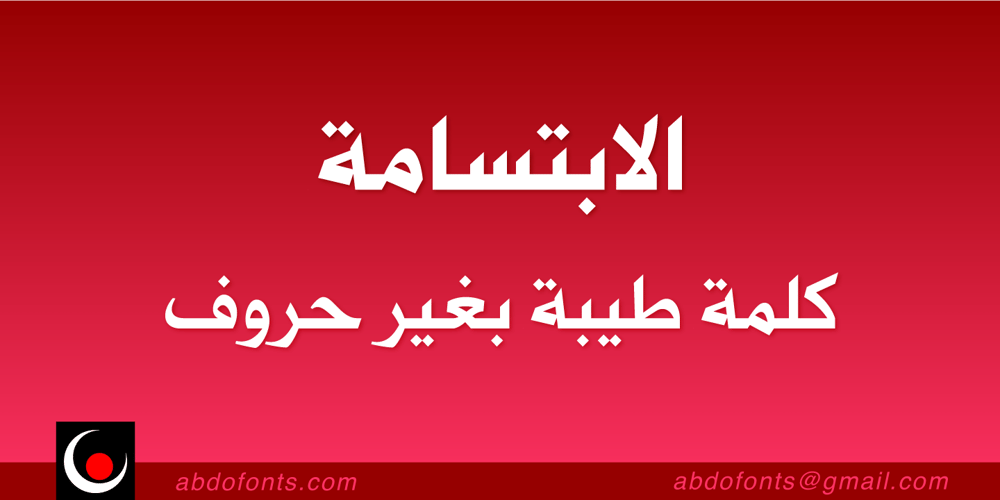
Abdo Screen
Abdo Screen font
Abdo Screen Font Family was designed by Abdulsamiea Rajab Salem and published by Abdo Fonts. Abdo Screen contains 6 styles and family package options. Abdo Screen is a very simple Naskh font for satellite channels, presentations, videos and advertisements. it comes in sixth weights Thin, Light, Regular, Medium, Bold and Black. This font also contains some of Stylistic Sets and Ligatures.